Forget Sorrow Grass: An Archaeology of Feminine Time is an exhibition about women's space and time at The Times Museum in Guangdong. Curated by Jianru Wu and Sirui Zhang, the exhibition brings together work by 15 contemporary artists who respond to the concept and implications of feminine time, space, and labor.
Suzy Chan, a designer based in Macau, was tasked to design the exhibition identity, graphics, and ephemera. Chan focused on the feeling of how women lack private space and time, because they are instead directed to the family or the household. At the same time, Chan felt the importance of highlighting the resilience and softness of women, and searched for a typeface that could capture these coexisting complexities. We got a chance to hear from Chan on her thought process of choosing Beatrice Display as the primary typeface.
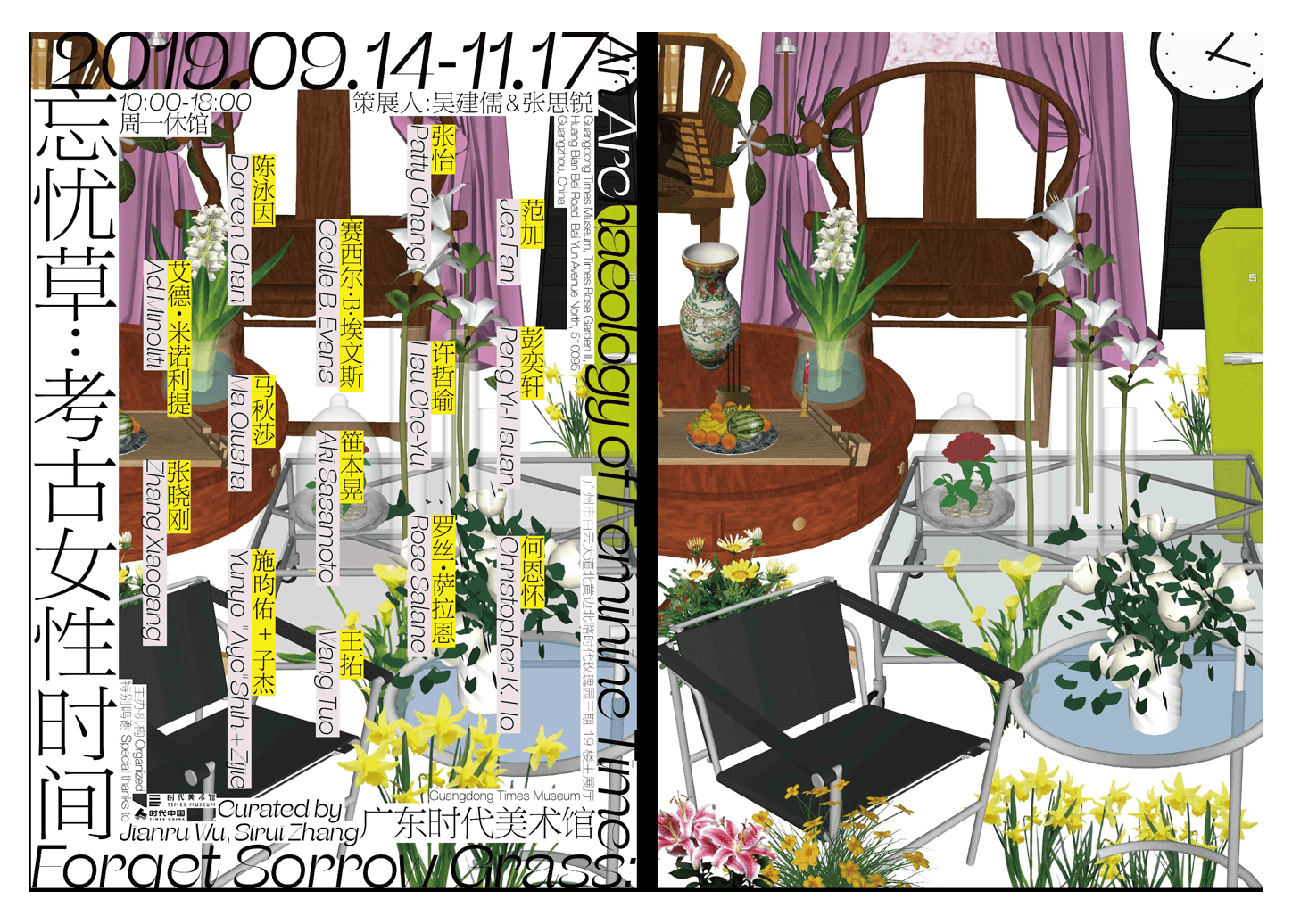
“Many women, even if they don’t have an equal voice in the family because of social or historical reasons, they still do not hesitate to invest their power and energy into the family. They are sometimes tolerant, sometimes strong — and I saw the strength in their softness. The atmosphere I wanted to convey in this design is a gentle and powerful feeling, and Beatrice Display fits this very well,” Chan said. “Beatrice Display is a flexible font that changes character at different weights. The thin weight feels more gentle, and as it gains weight it grows stronger. Beatrice Display has a beautiful stroke contrast, and the curves move with a sense of power. I really couldn’t find a better font.”
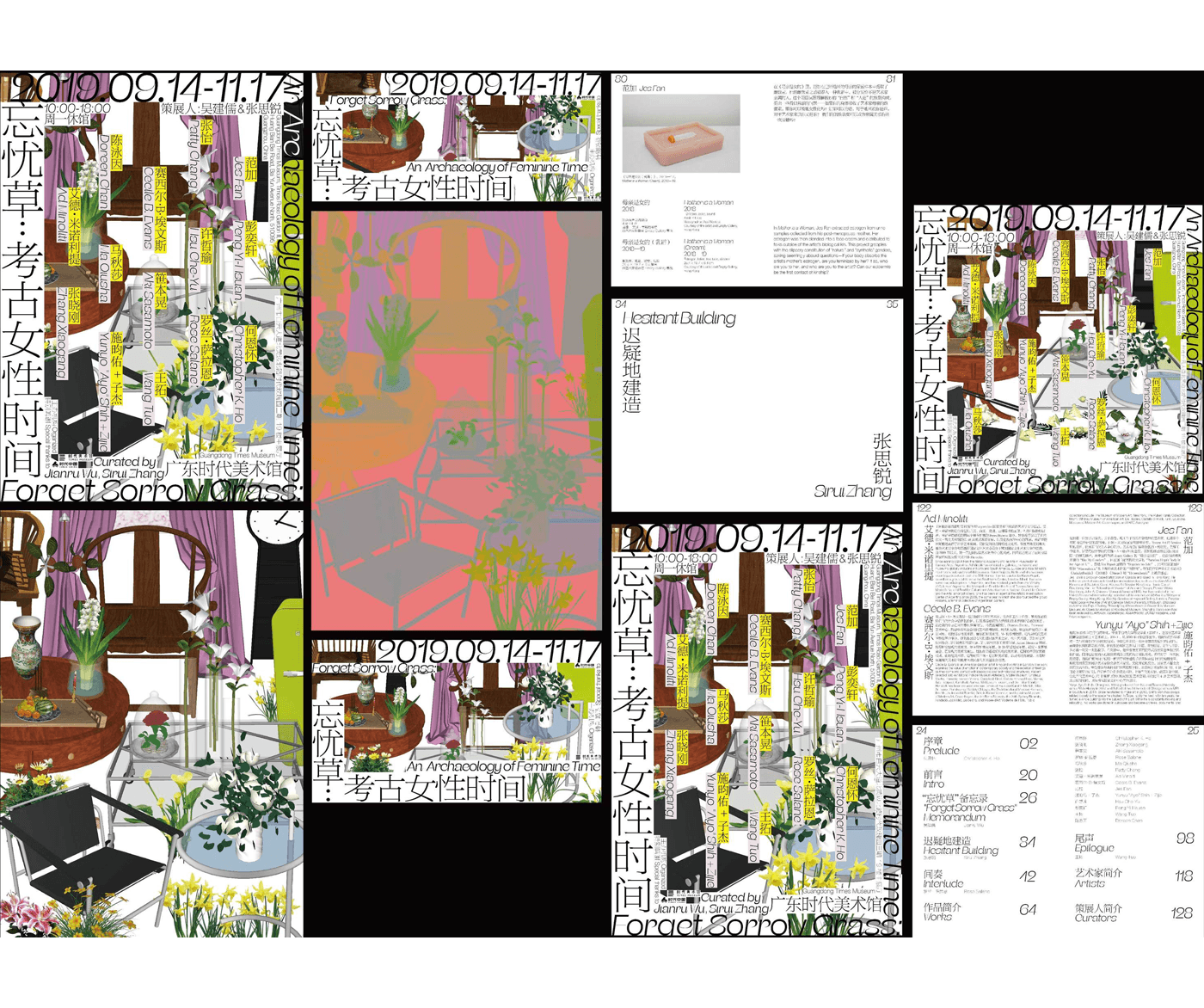
After deciding on Beatrice Display, Chan paired a typeface by Founder Type and described how the contrast of strokes in the Hanzi resonate with the Light weight of Beatrice Display. For the exhibition poster, Chan’s design emphasizes household labor and lack of space by crowding the poster with a collage of furniture and houseplants. The typography adds to the density and ordered chaos: exhibition titles and details in both English and Chinese tightly border the poster, while contributing artists are methodically scattered in the center.
Typeface: Beatrice Display